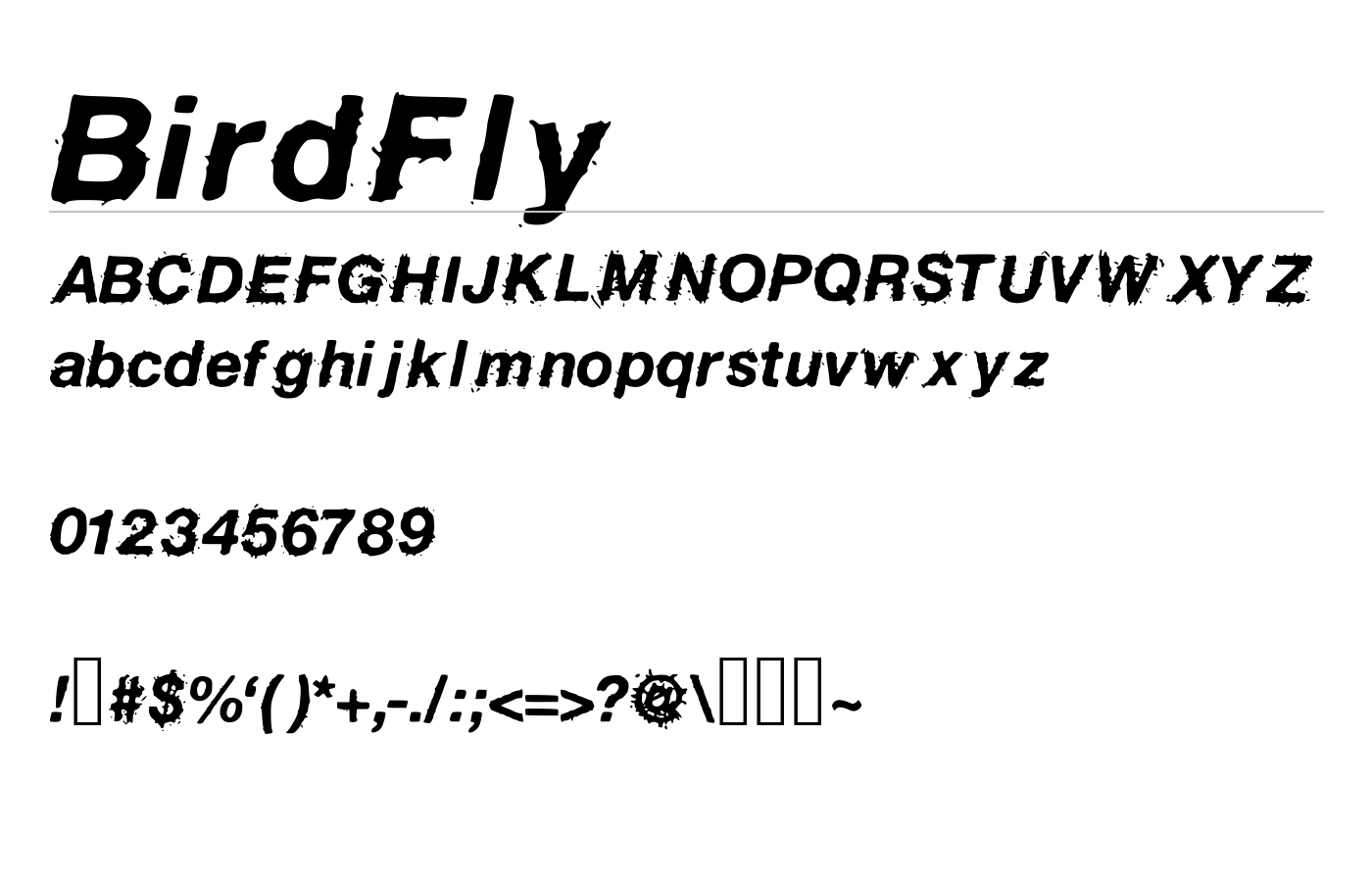
BirdFly is a bold, sans serif display font featuring a distressed, textured effect that gives it a rugged and dynamic feel. Its slightly condensed letterforms with moderate x-height and sharp, uneven edges make it perfect for creating eye-catching headlines or logos that need a bold, adventurous, or urban vibe. This font works best in creative and energetic designs where a sense of movement and raw character is desired.
BirdFly Font
About BirdFly Font